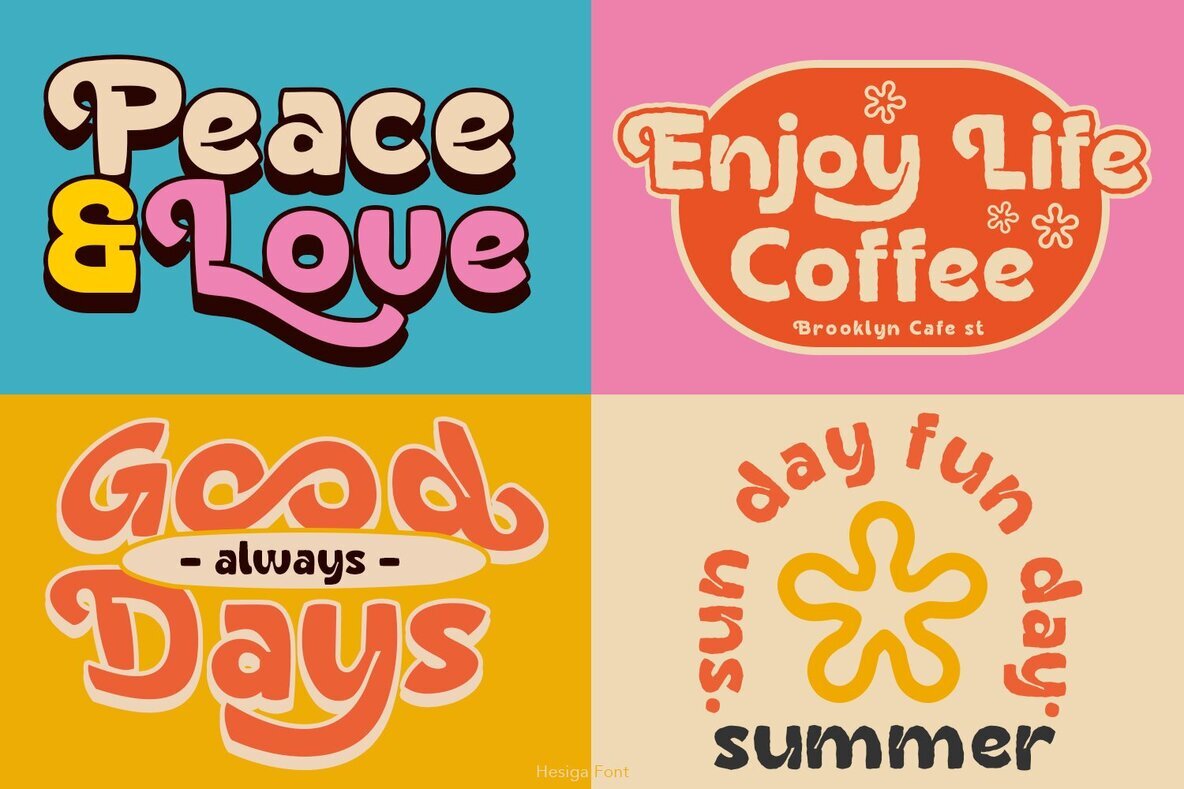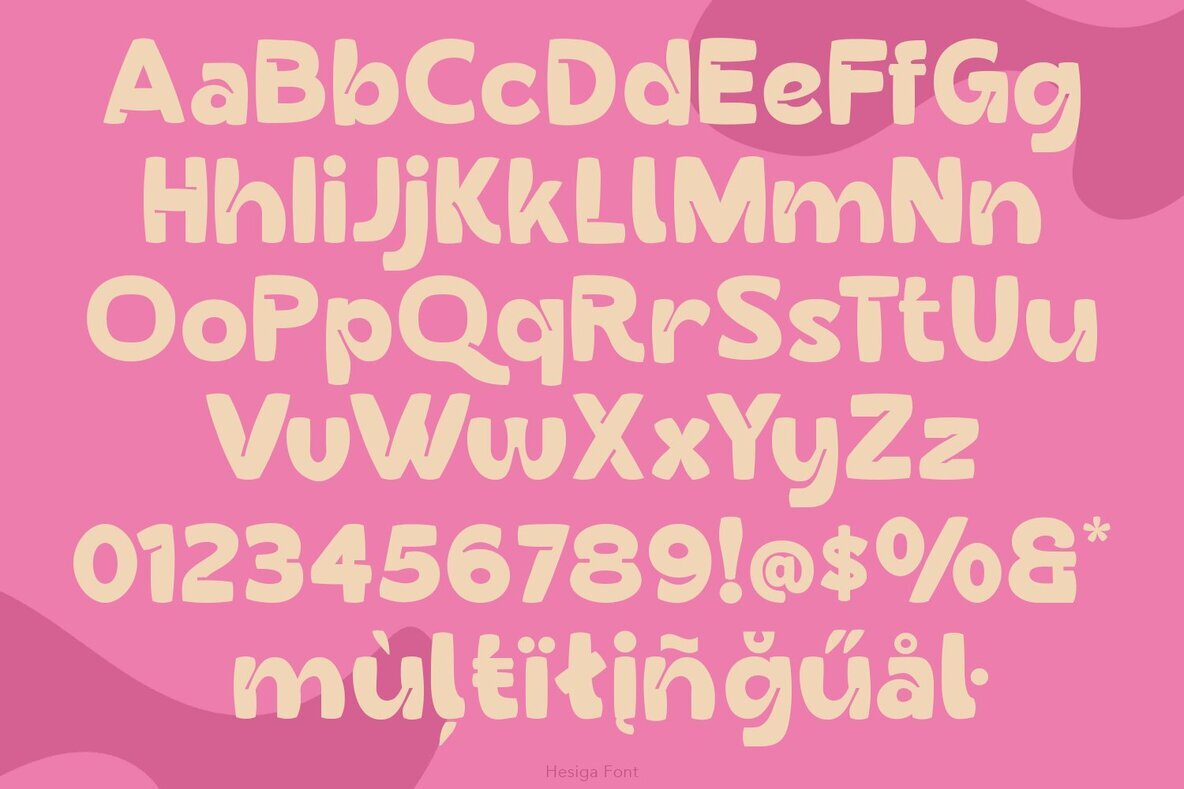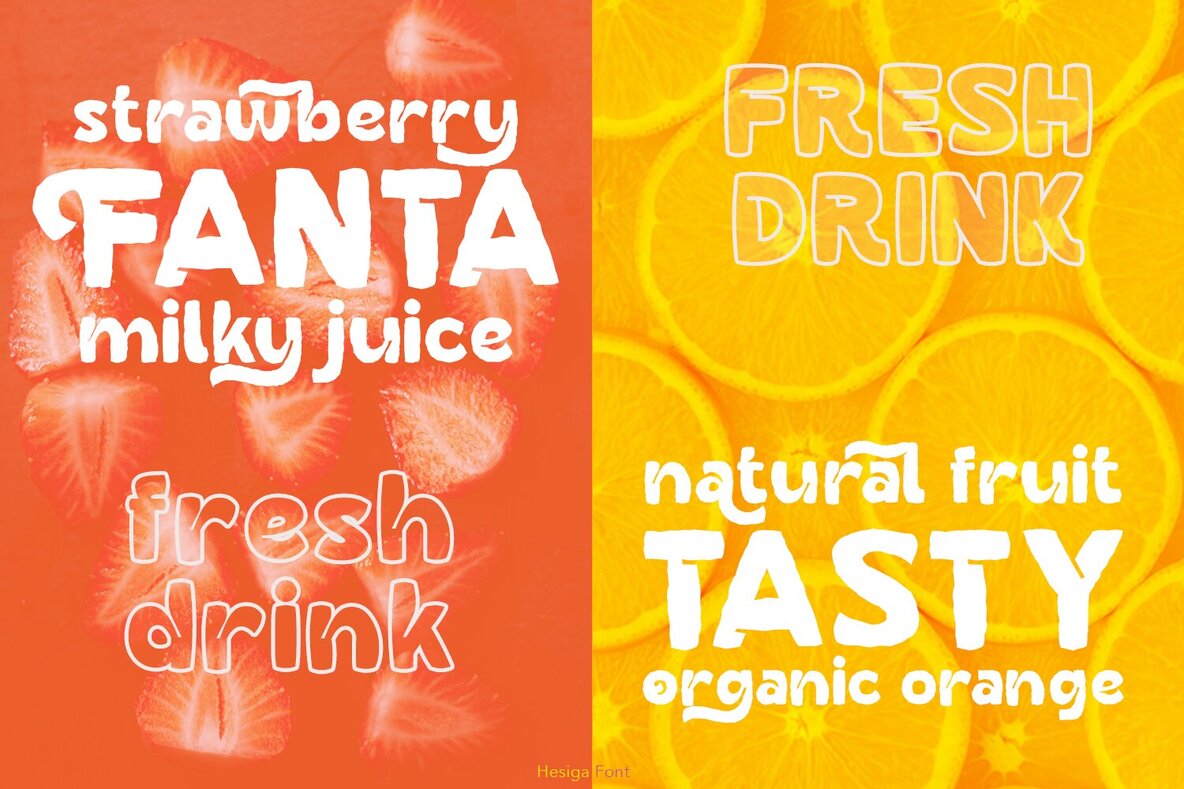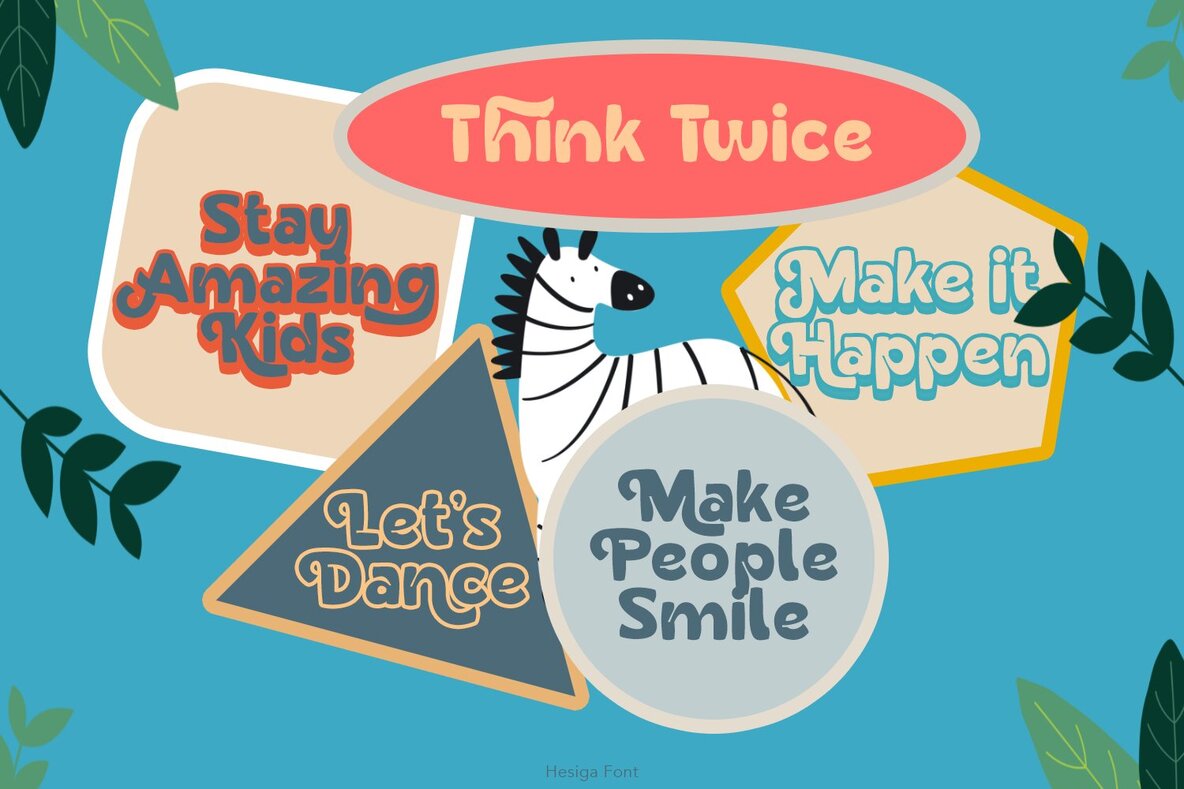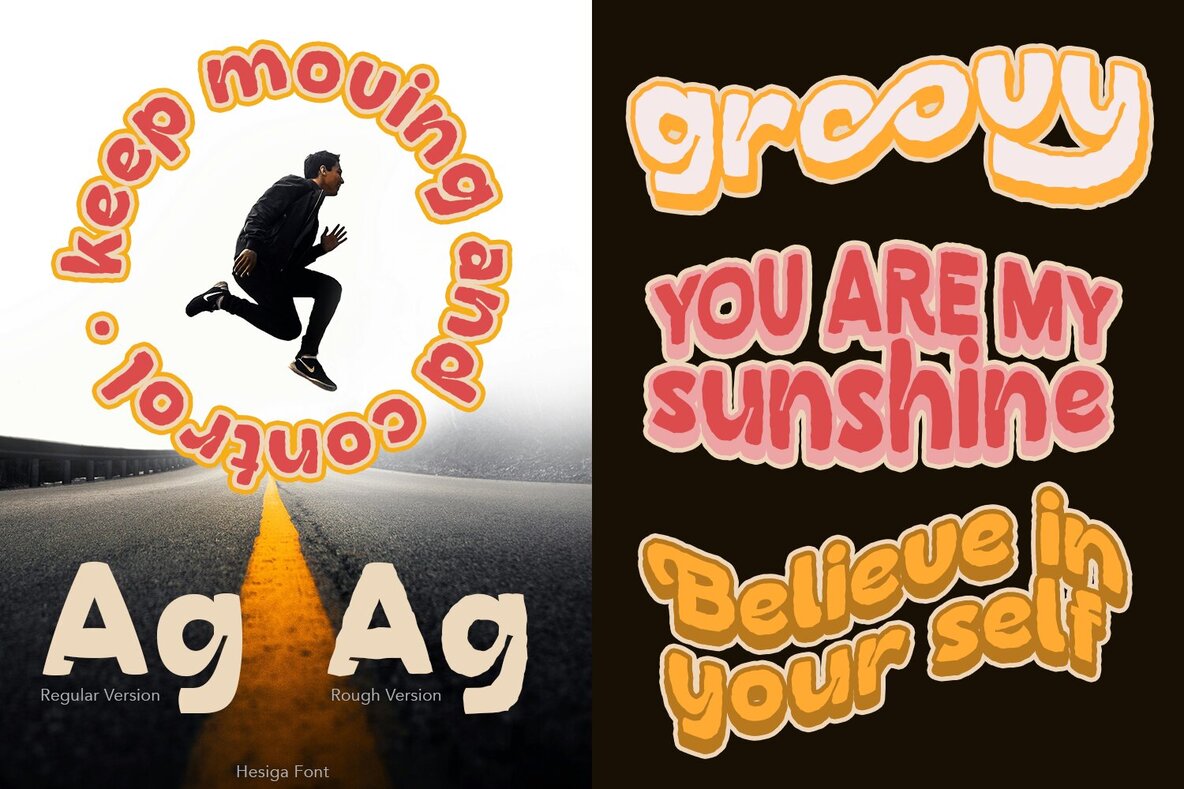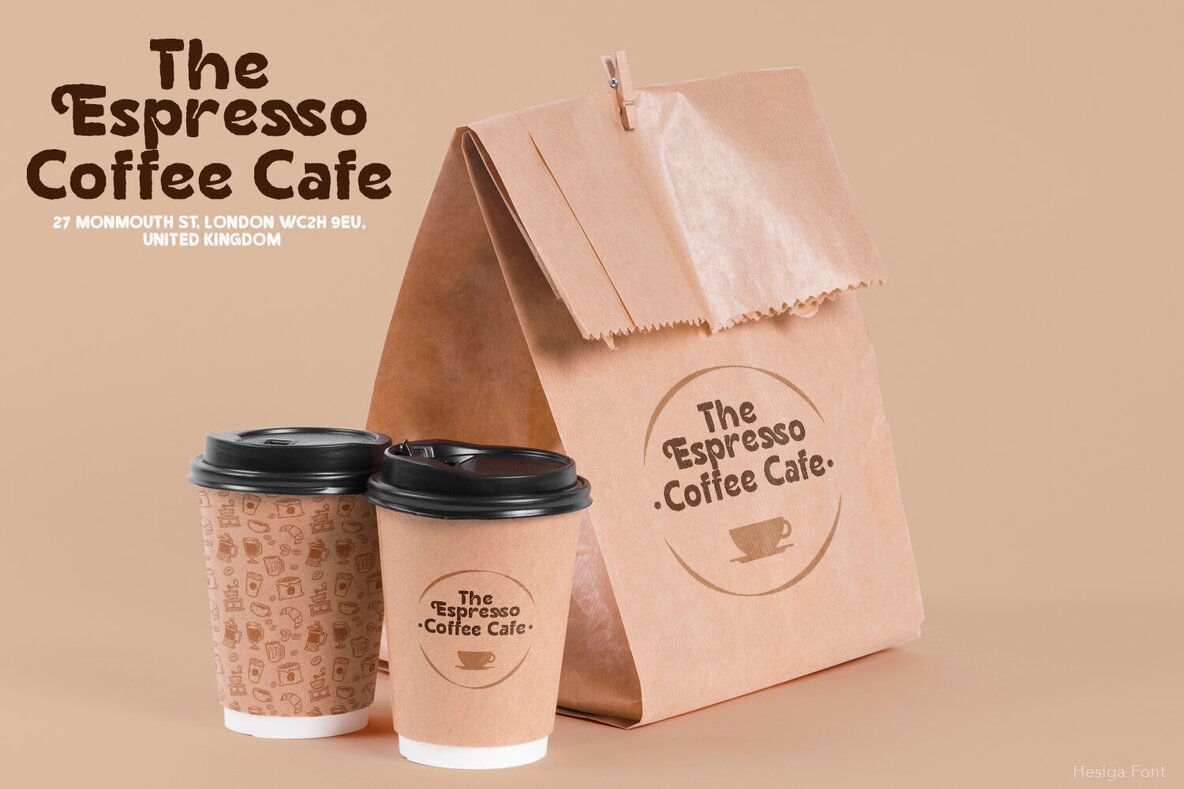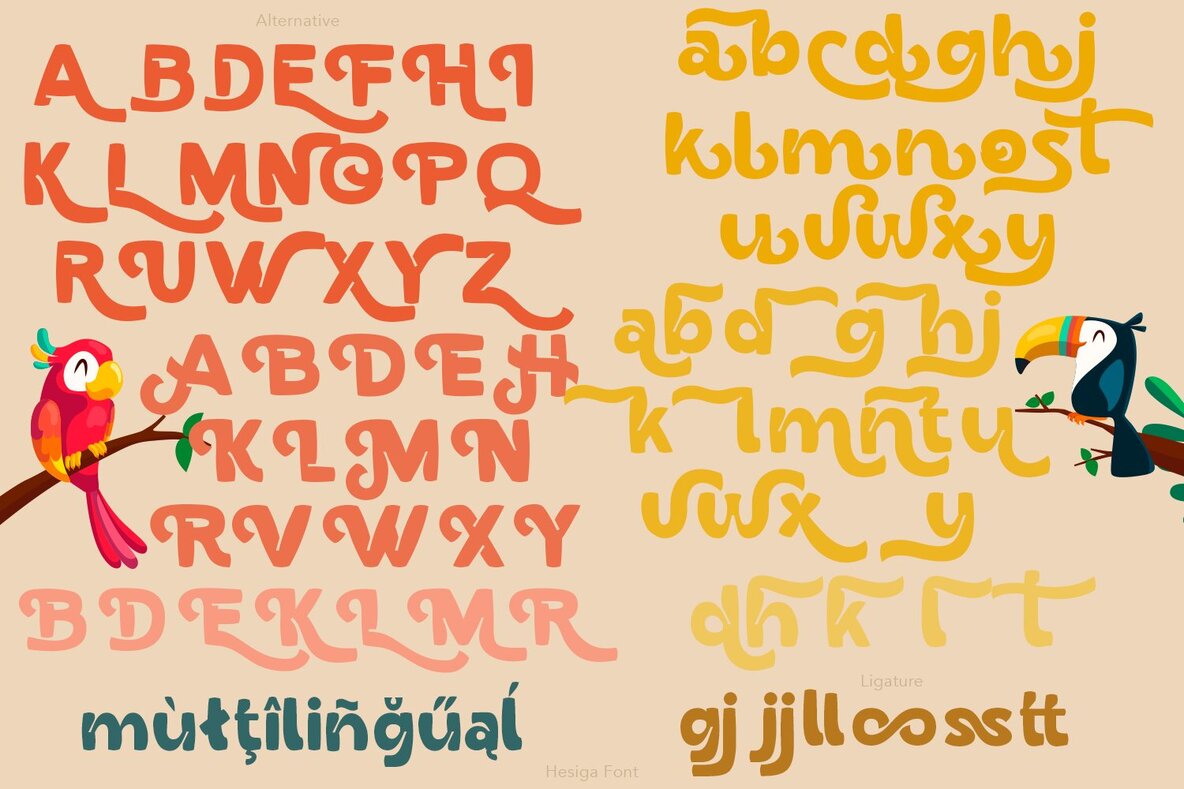
Hesiga Font
Hesiga is a vibrant retro display font brimming with the playful spirit of the 60s and 70s. Its bold and curvy letters evoke a sense of nostalgia, making it an ideal choice for creating designs with a vintage flair. Whether you're working on posters, packaging, or any project that requires a touch of whimsy, Hesiga delivers an eye-catching presence that's both fun and memorable.
The font's unique charm lies in its ability to convey both a strong statement and a sense of playful movement, perfect for grabbing attention. For designers seeking to explore creative variations, additional characters can be accessed through the glyphs panel, offering more customization options. Hesiga is well-suited for projects that aim to capture the essence of retro design with a contemporary twist.